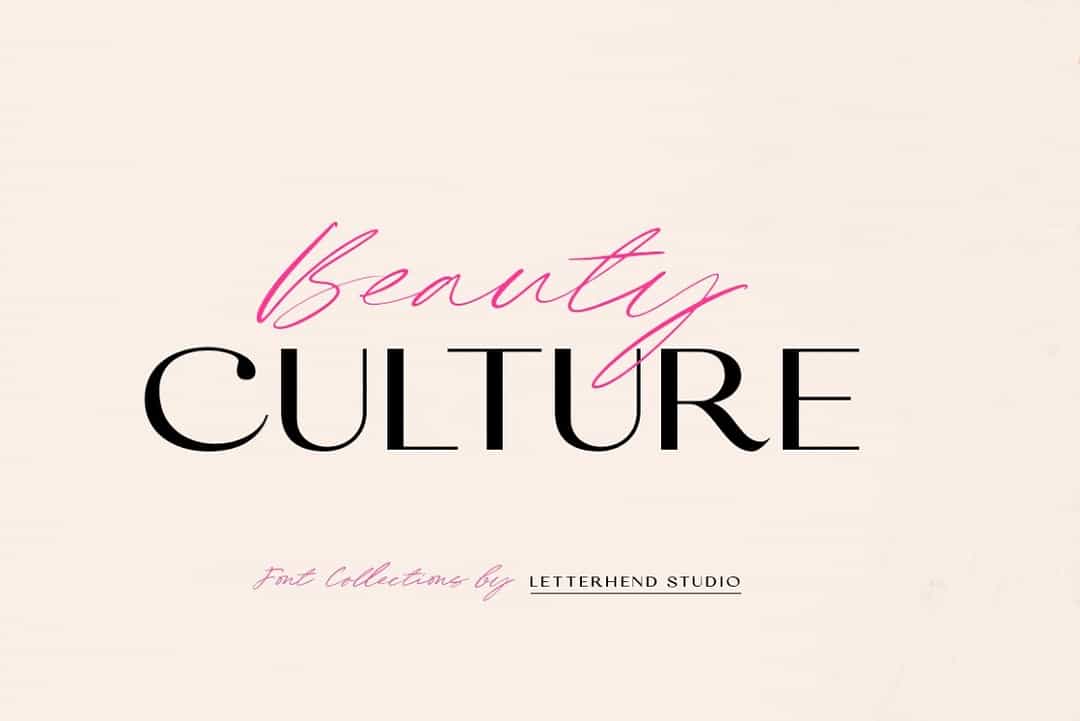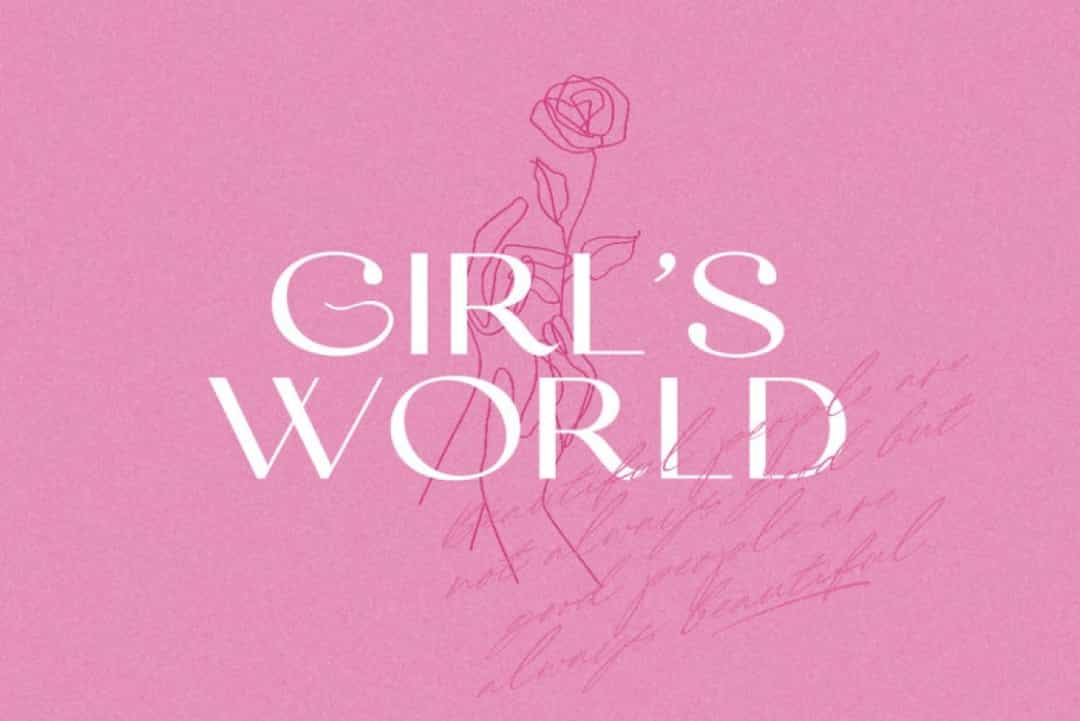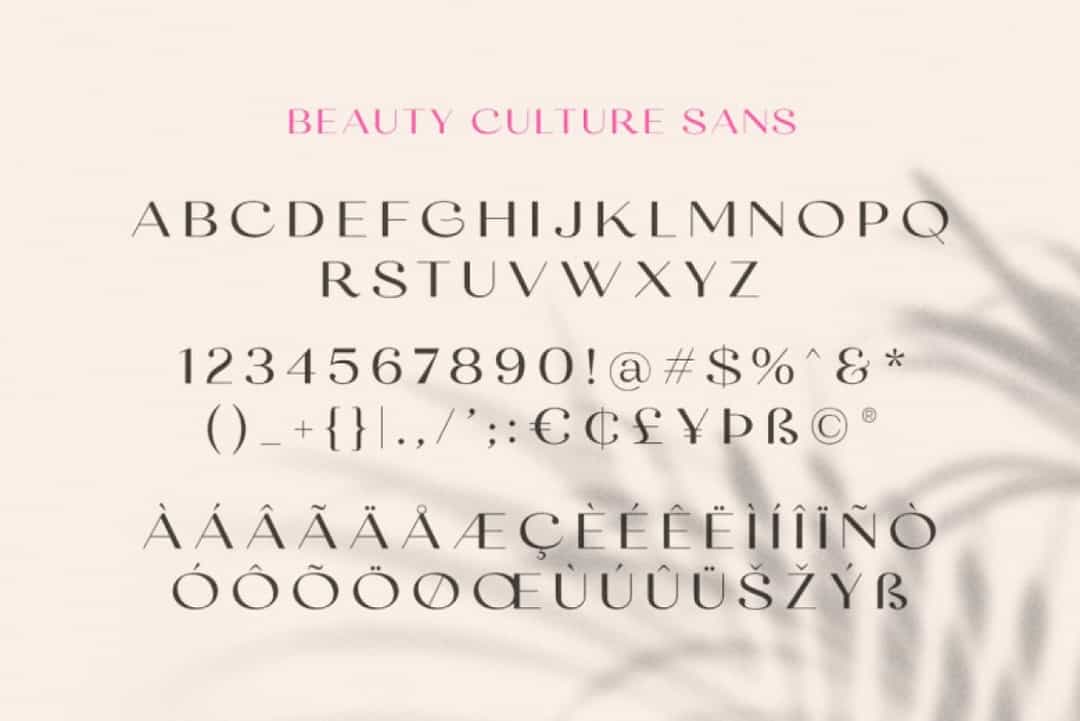
Beauty Culture Font is a collection of fonts designed to create a modern and luxurious aesthetic. Combining bold sans with natural handwriting script, these fonts make an excellent combination for headlines and logotypes, apparel invitations packaging branding advertising etc.